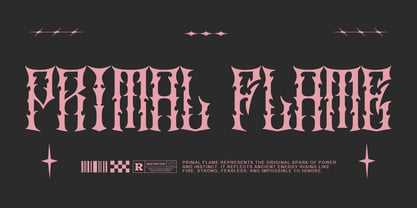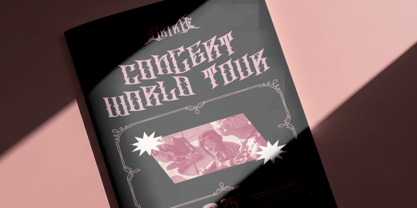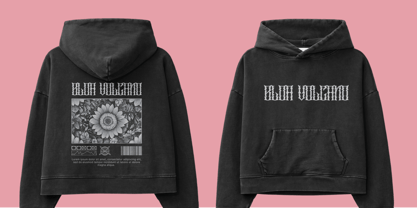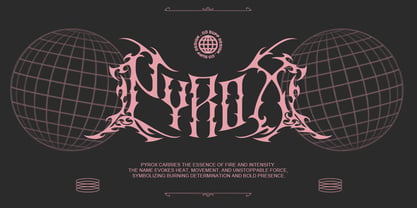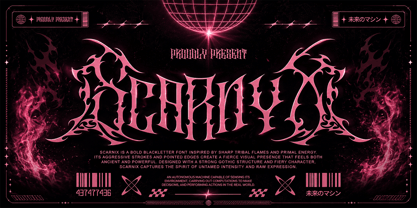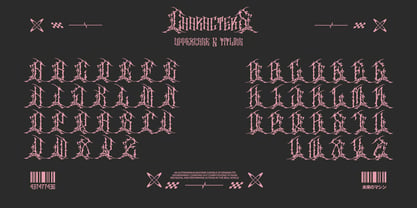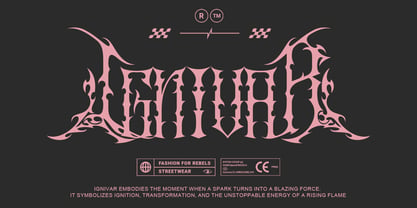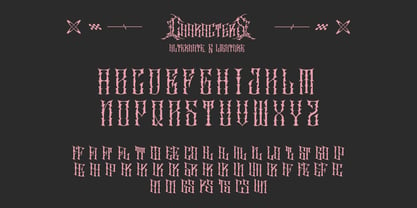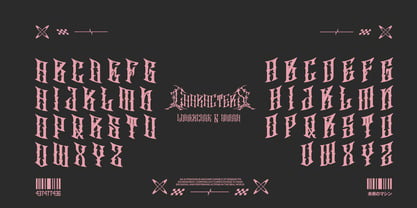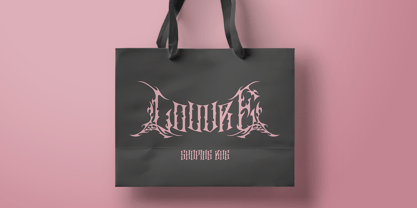
Scarnix
Scarnix is an aggressive blackletter display font born from primal fire, sharp tribal energy, and gothic domination. Crafted with razor-edged strokes, fierce curves, and a powerful symmetrical structure, Scarnix delivers a dark visual presence that feels both ancient and untamed. Inspired by ritual symbols, underground metal aesthetics, and the raw intensity of chaotic expression, every character radiates brutal elegance and commanding power.
Its sharp ornamental details and destructive gothic form make Scarnix perfect for band logos, album artwork, streetwear branding, poster designs, game titles, tattoo graphics, merchandise, cinematic visuals, and dark fantasy creations. More than just typography, Scarnix transforms every word into a weapon of visual impact — loud, fearless, and impossible to ignore.
Unleash the savage energy of Scarnix and let your designs burn with dark authority, primal chaos, and unstoppable intensity.